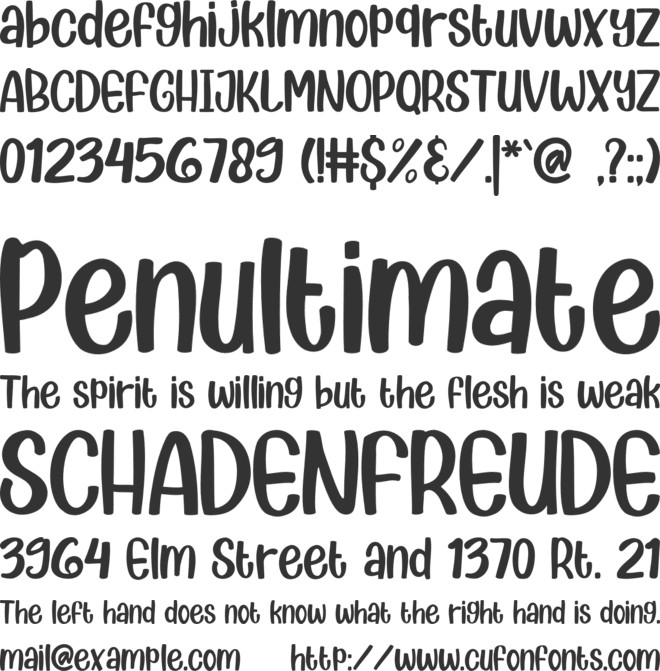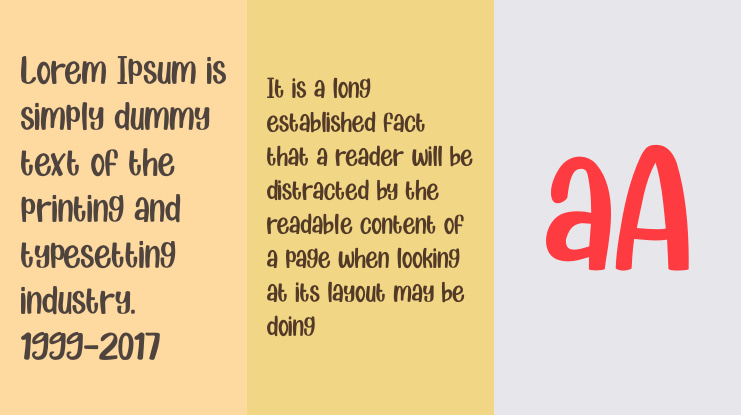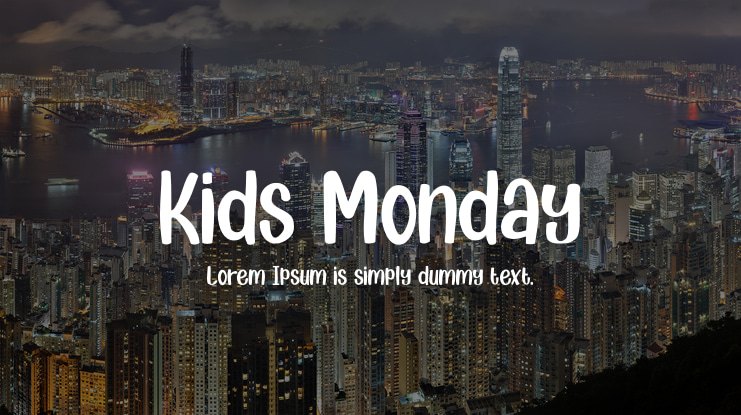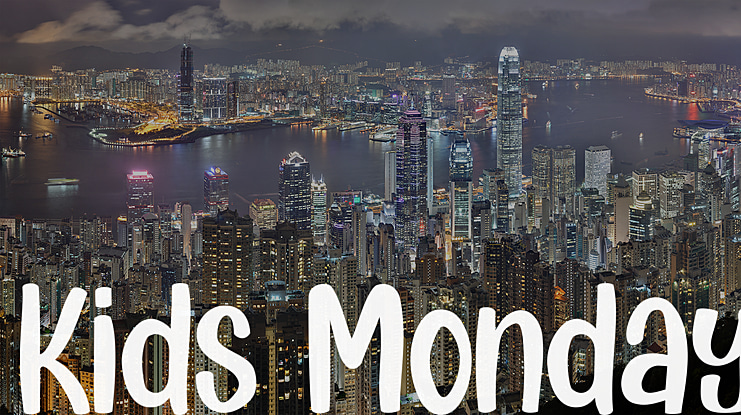
Kids Monday Font
Kids Monday is a cute, cute and friendly display font. Its natural and unique style makes it especially suitable for large pool designs. Its unique characteristics make it suitable for various purposes such as quotes, t-shirt designs, flyers, YouTube channels, labels, logos and any other design that requires a playful touch. The only limit is your imagination!This demo font is for personal use only and Commercial Use Not Allowed !,If you want to use this font for Commercial use, you need to purchase a Commercial license here:https://www.creativefabrica.com/product/kids-monday/You can also Find other Great Fonts on Our site, Just Check our site here:https://www.creativefabrica.com/designer/pandanwangiIf you need a Special License, please feel free to contact us at: thank youregardspandanwangi
Kids Monday font preview